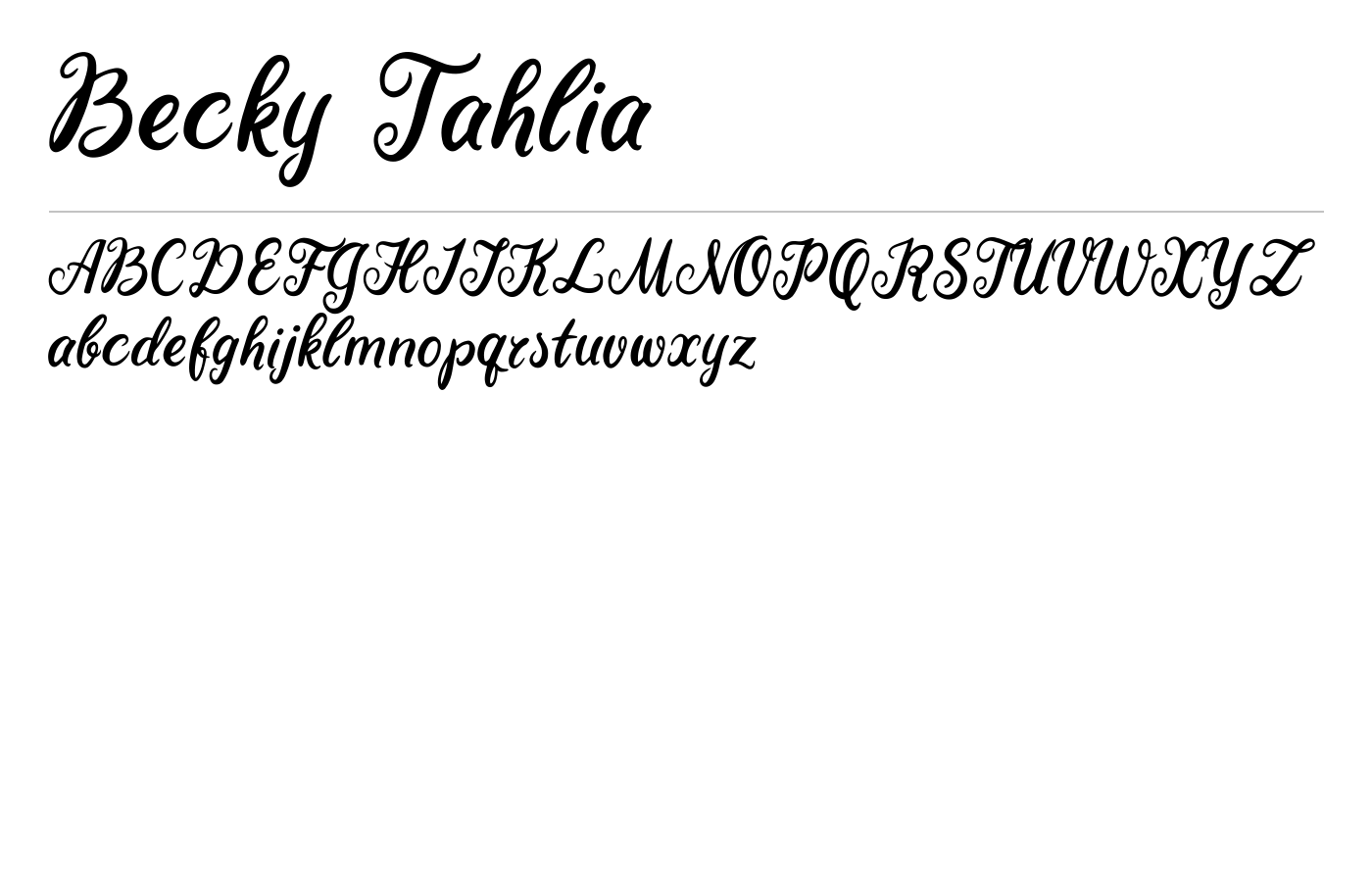
Becky Tahlia is a graceful script font with a smooth, flowing style that combines elegance with readability. Its moderate stroke contrast and charming, rounded letterforms give it a friendly yet sophisticated personality, perfect for branding, invitations, and creative projects that seek a warm and stylish touch. This font shines in headlines and decorative text where a personal, handwritten feel is desired.
Becky Tahlia Font
About Becky Tahlia Font
| Font family | Becky Tahlia Font |
| Designer | Cundrawan (cove703) |